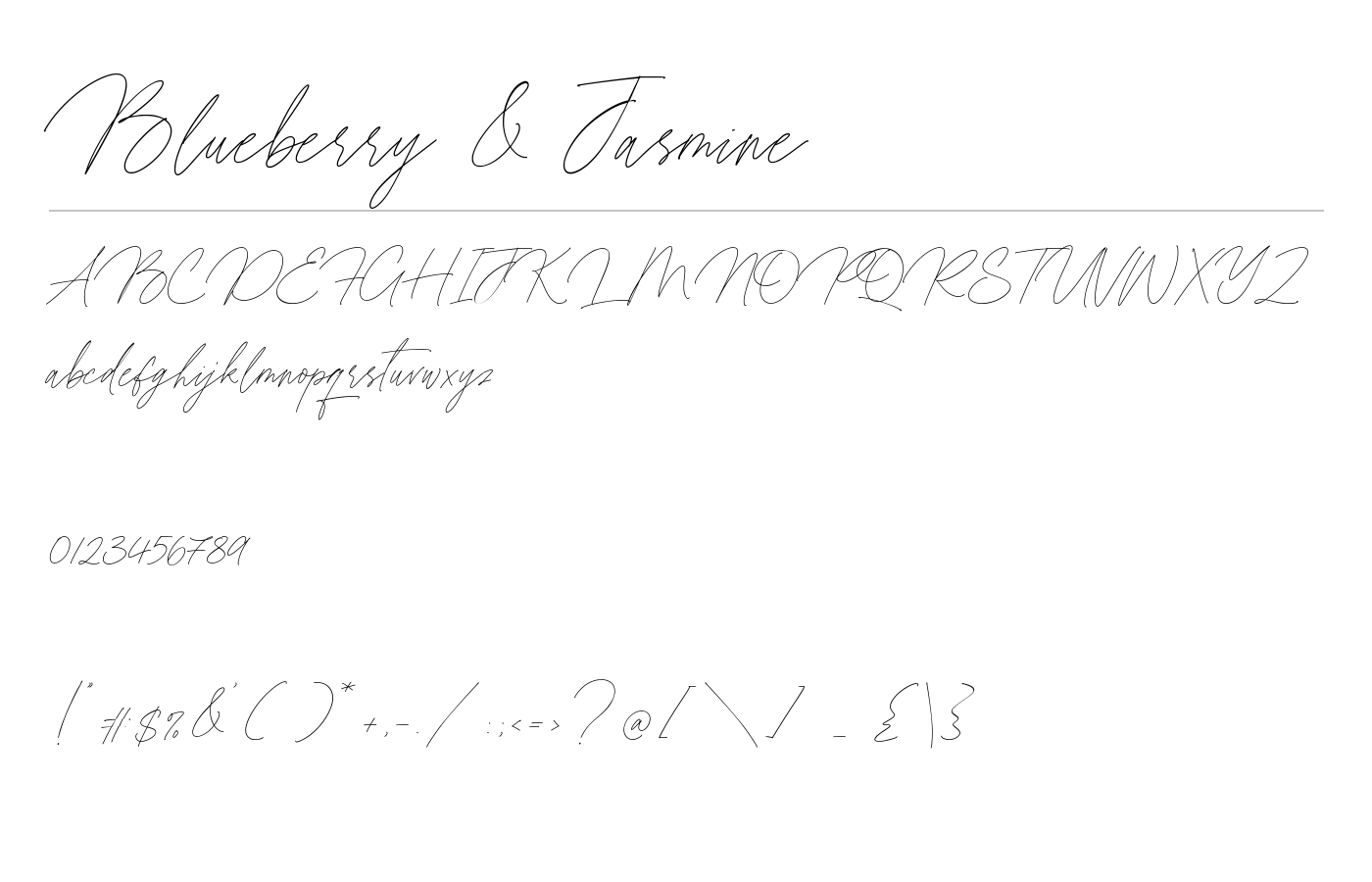
Blueberry & Jasmine is an elegant, delicate script font with thin, flowing strokes that evoke a sophisticated and graceful feel. Its light weight and airy, handwritten style make it ideal for luxury branding, wedding invitations, and stylish editorial designs where a personal, refined touch is desired. The font’s tall, slender letterforms and subtle natural curves create a modern yet timeless look perfect for expressive headlines and decorative accents.
Blueberry & Jasmine Font
About Blueberry & Jasmine Font
| Font family | Blueberry & Jasmine Font |
| Designer | Letterative Studio |